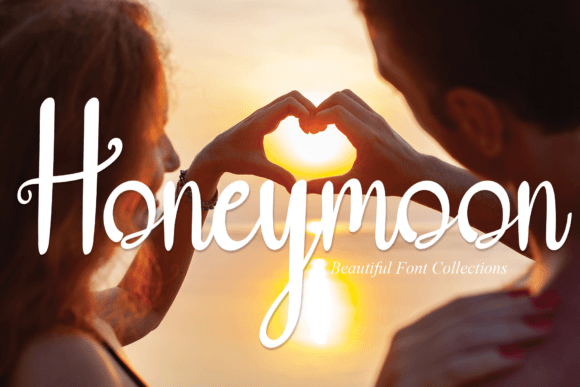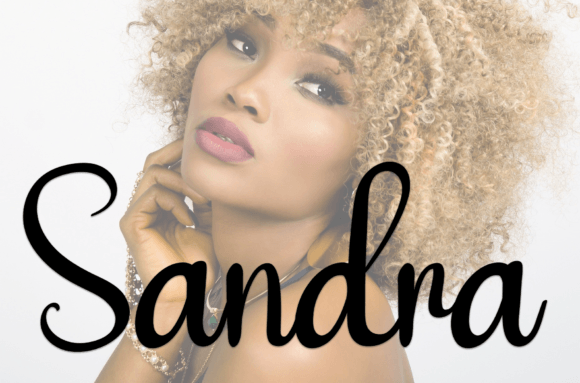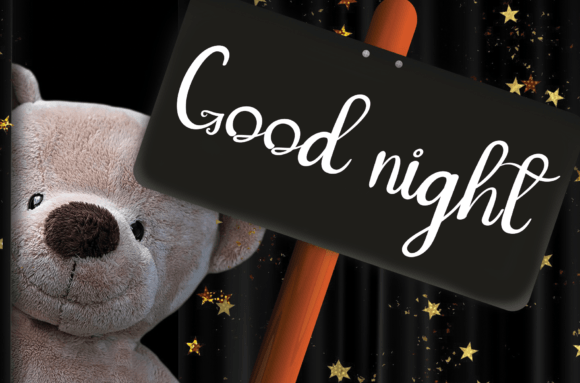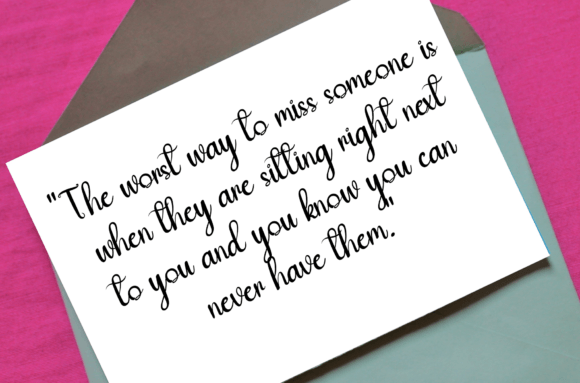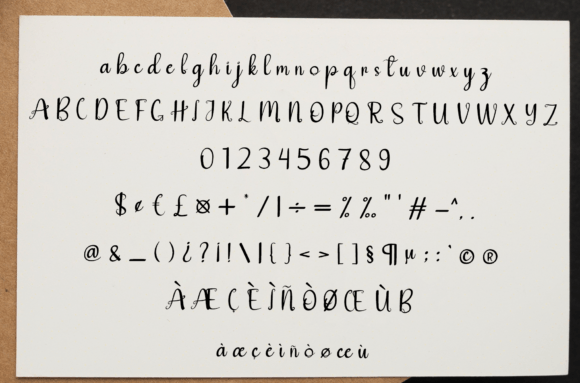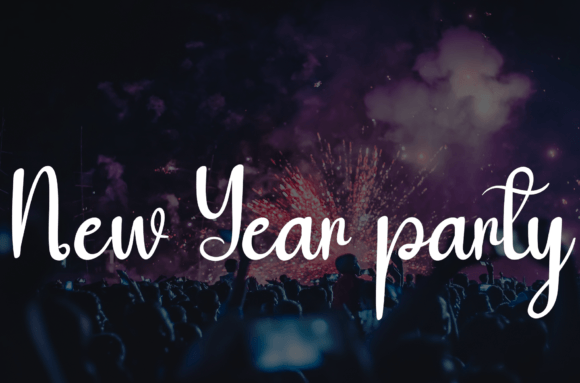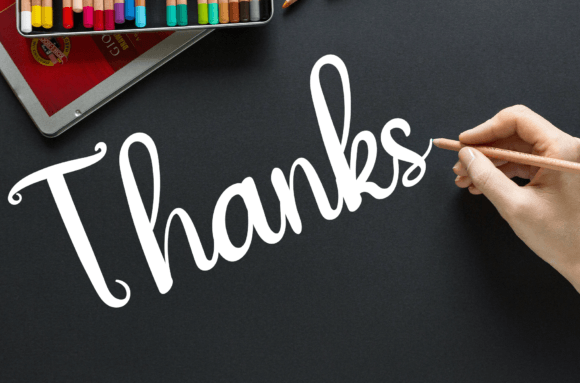
Honeymoon Font
What Is Honeymoon Font?
Honeymoon is a sweet and friendly handwritten font that adds warmth and joy to any design. With its playful curves and soft flow, this font feels personal and welcoming. Whether you want your text to look romantic, cheerful, or simply inviting, Honeymoon makes it possible.
From the very first look, it gives every word a touch of charm and authenticity.
Honeymoon is a versatile choice for many design projects. It’s perfect for wedding invitations, adding a romantic, handmade feel that sets the tone for a beautiful celebration. No matter your theme—modern, rustic, or classic—this font adapts with ease.
It’s also a wonderful option for greeting cards. Use it for birthday wishes, thank-you notes, or holiday messages, and your designs will feel extra special and heartfelt.
If you create social media graphics, Honeymoon brings a cheerful and approachable look that attracts attention. Whether you’re designing quotes, promotions, or announcements, this font helps your content feel fresh and authentic.
For product packaging and labels, Honeymoon adds a friendly, handmade touch that makes your brand stand out. From small businesses to personal projects, it brings a warm, creative flair to any design.
Why Choose Honeymoon Font?
Honeymoon is a great addition to any font library because it stays clear and legible at all sizes. Whether you’re using it for headlines or small text, it remains easy to read and beautifully balanced.
It pairs effortlessly with serif and sans-serif fonts, helping you create polished, cohesive layouts.
Fully PUA encoded, Honeymoon gives you access to all swashes, alternates, and special glyphs without extra software. Customizing your text is quick and fun.
Honeymoon brings a sweet, playful, and personal feel to any project. Even simple layouts come to life with its friendly handwritten style. Whether you’re creating wedding stationery, social media posts, or product labels, Honeymoon helps your work look professional and memorable.
A high-quality handwritten font shows you value the details, which builds trust and connection with your audience.
Honeymoon isn’t just a font—it’s a creative companion that helps your ideas shine with warmth and authenticity. From invitations and cards to branding and packaging, it adds a personal touch that makes your designs stand out.